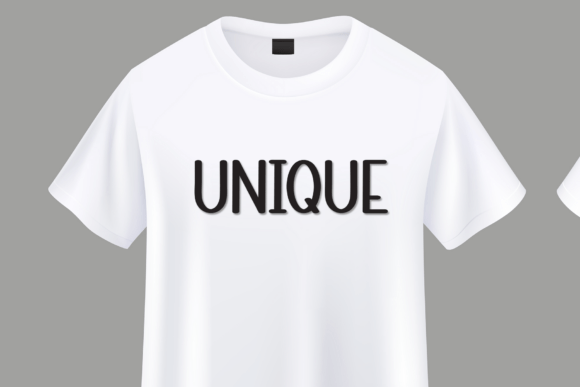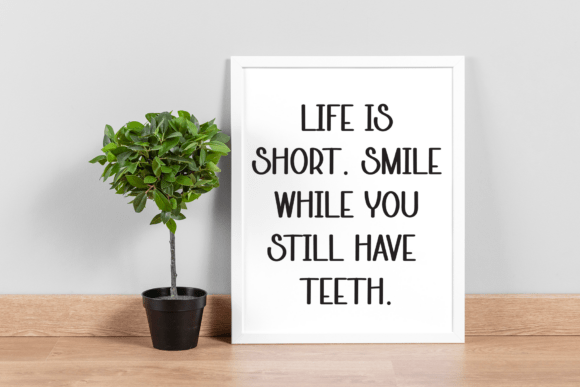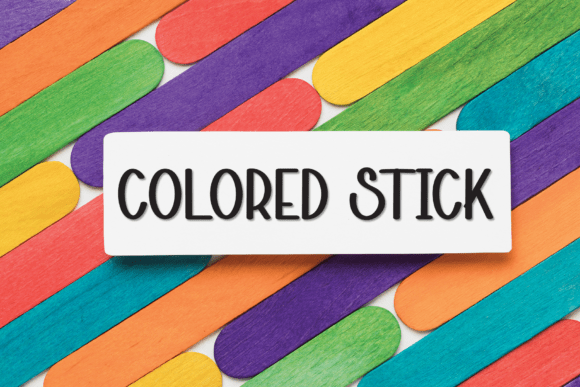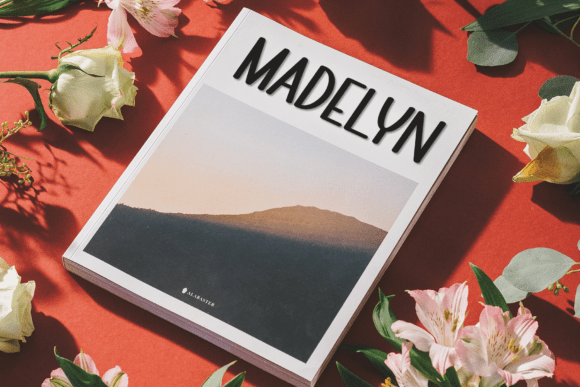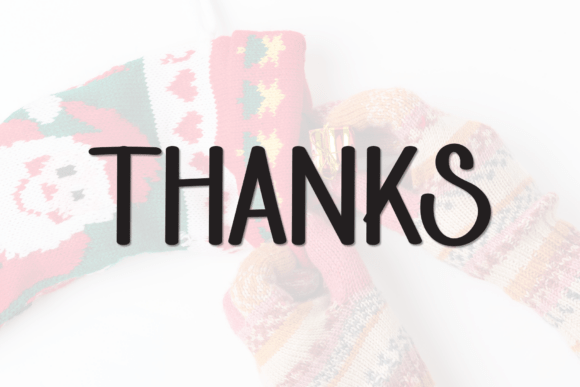
Introduction to Knitwear Christmas Font
It’s that magical time of the year when creativity flows freely, and the air is filled with the warmth of festive cheer. You’re sipping hot cocoa, surrounded by twinkling lights, and your mind is buzzing with ideas for a special holiday project. Perhaps it’s a Christmas card for loved ones, a set of festive packaging designs, or a social media campaign that screams winter wonderland. Whatever your creative vision, the right font can make all the difference.
Enter the Knitwear Christmas Font, a modern-style display font that embodies the cozy spirit of the holiday season. With its tall, rounded letters and clean, handcrafted appearance, this font is a design resource that’s sure to bring joy and comfort to your high-quality creative project. Whether you’re a seasoned designer or a DIY enthusiast, the Knitwear Christmas Font is a valuable addition to your design arsenal, perfect for free download and use on transparent backgrounds.
Key Features of Knitwear Christmas Font
- Unique, festive design perfect for holiday-themed creative projects.
- High-quality font with a transparent background, ideal for use on various design resources.
- Designed with a clear, readable font size of 72 points and a high resolution of 300 DPI.
- Perfect for use in various design applications, including digital and print media.
- Unique knitwear-inspired design elements, making it a standout choice for creative projects.
Honest Review: Knitwear Christmas Font
As a designer, I was excited to dive into the Knitwear Christmas Font for my next creative project. I’m always on the lookout for high-quality design resources that can elevate my work, and I’m happy to report that this font delivers.
Here are some things that work well: ✨ The font is incredibly festive and perfect for holiday-themed projects. The design is modern and sleek, making it easy to use in a variety of creative contexts. The transparent background is a great touch, allowing me to easily overlay text on top of images without any distractions.
Overall, I’m impressed with the Knitwear Christmas Font and would definitely recommend it to designers looking for a high-quality, free download to add some holiday cheer to their creative projects. With a little more flexibility in the license and font weight options, this font could be a top choice for design resources.
- Perfect for holiday-themed creative projects
- Modern and sleek design
- Transparent background for easy overlay
- Could benefit from more font weight options
How to Use Knitwear Christmas Font
Tips for Getting the Most Out of the Knitwear Christmas Font
To get the most out of the Knitwear Christmas Font, consider the following tips:
- Experiment with different font sizes and styles to create a unique design.
- Combine the Knitwear Christmas Font with other design elements, such as images and graphics, to create a visually appealing design.
The Knitwear Christmas Font is perfect for:
- Creating festive holiday designs, such as Christmas cards and invitations.
- Designing winter-themed merchandise, such as t-shirts and mugs.